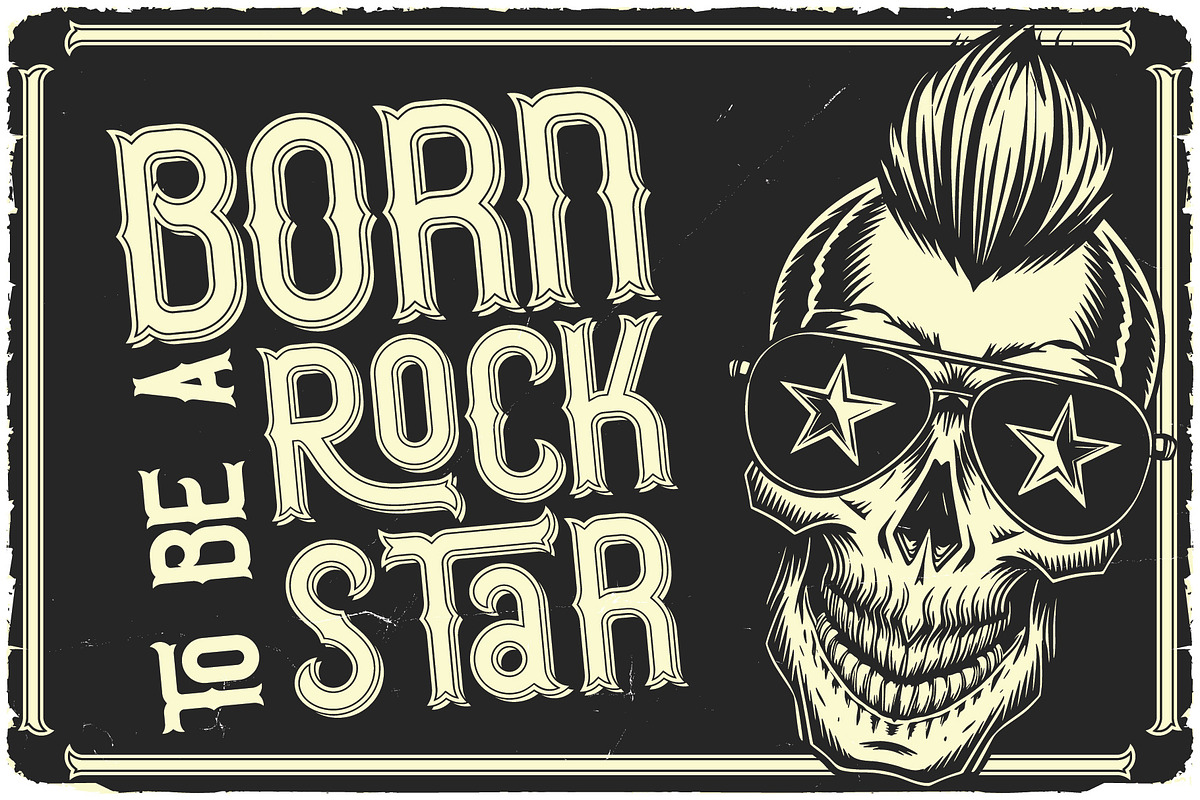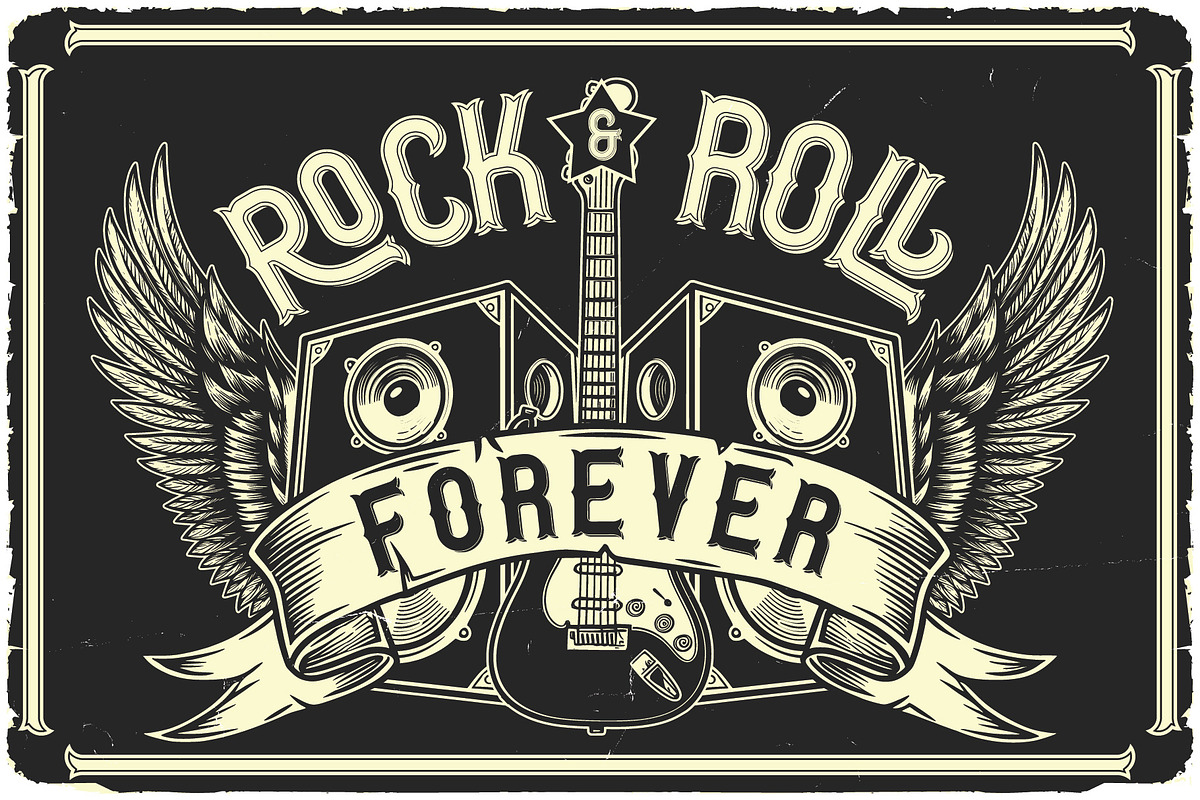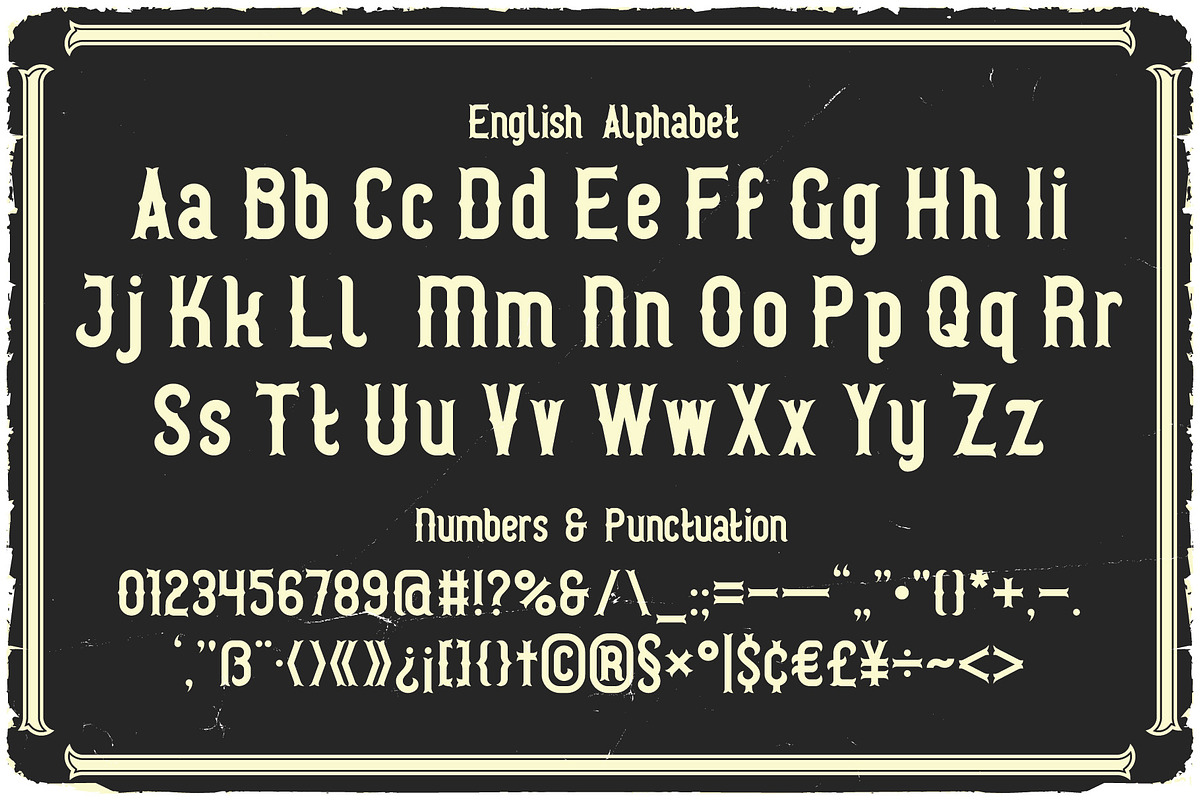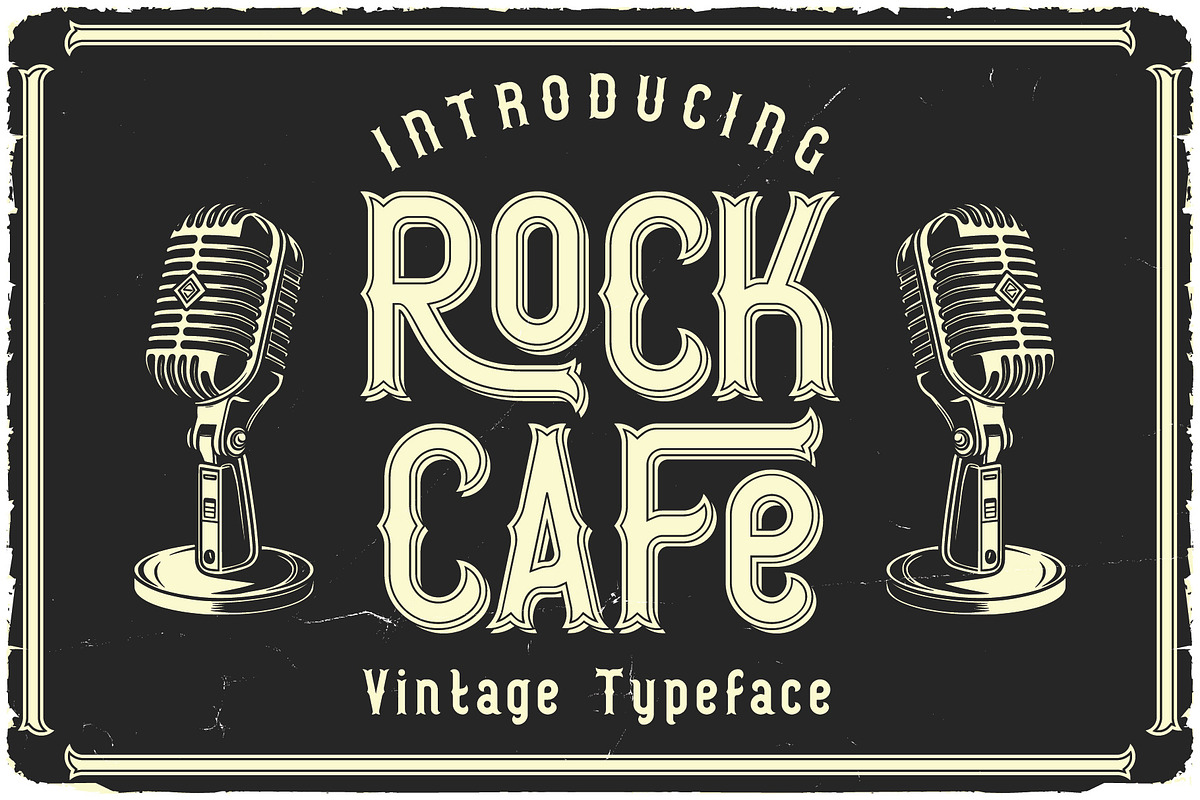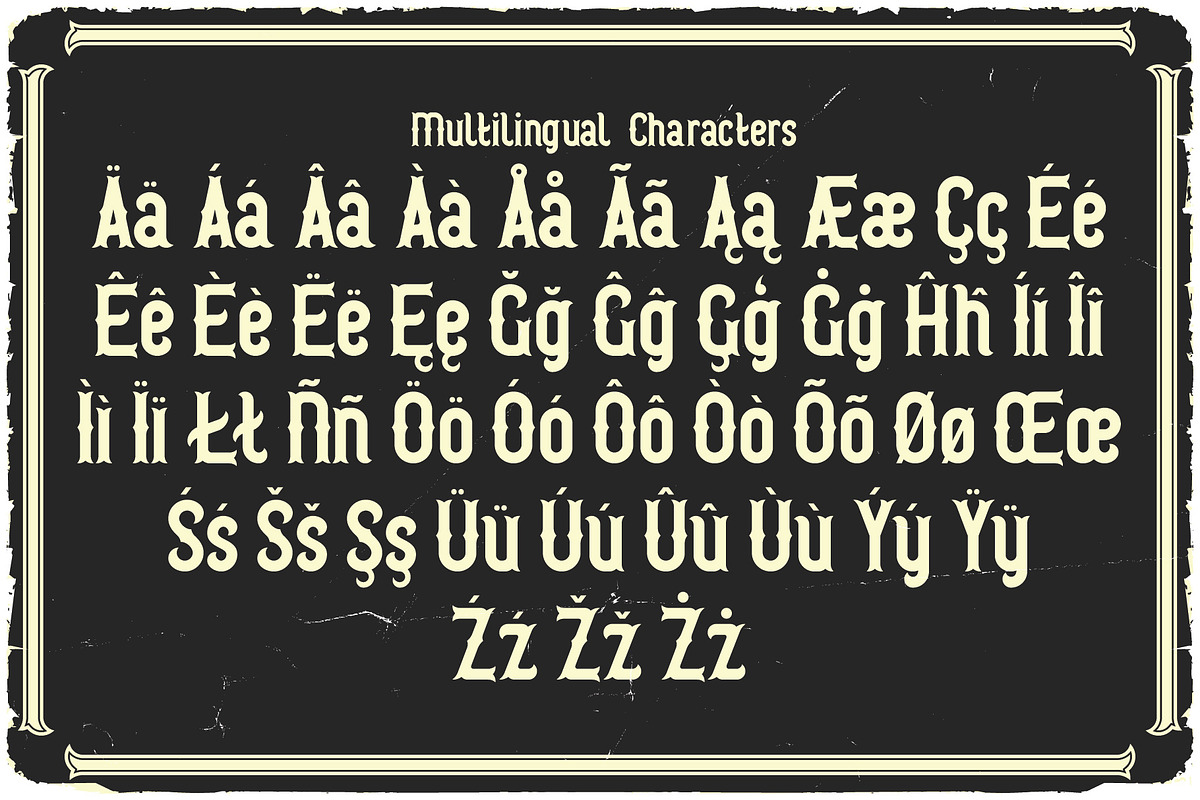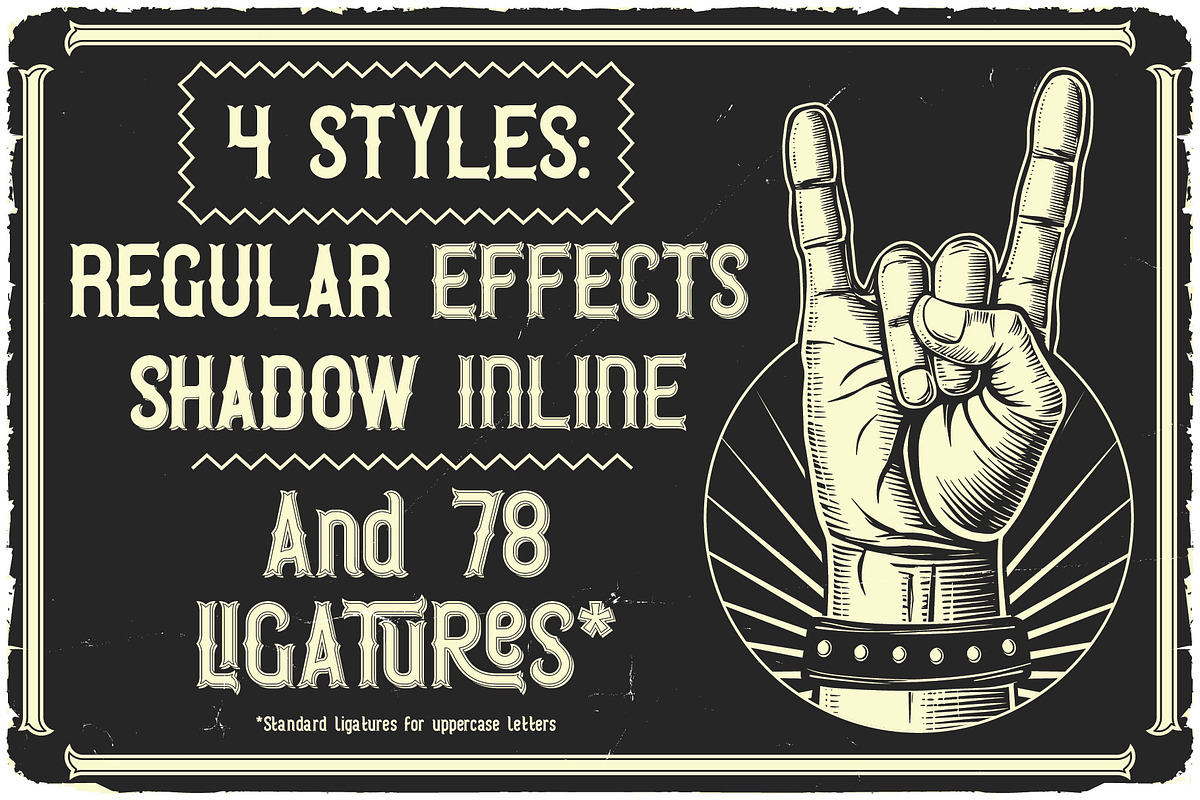
Rock Cafe Vintage Label Font
Unique, creative, vintage, fantasy, horror, monogram, western & label serif font. Comes with multilingual support & 78 ligatures + 4 font versions - great for your new logo, monogram or branding project.
- 4 font versions
- Multilingual support & 78 ligatures
- Great for retro or vintage style branding projects